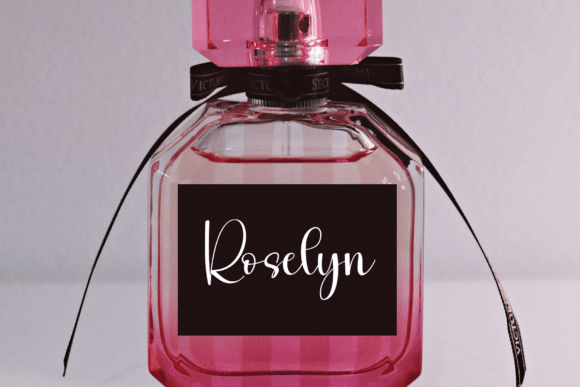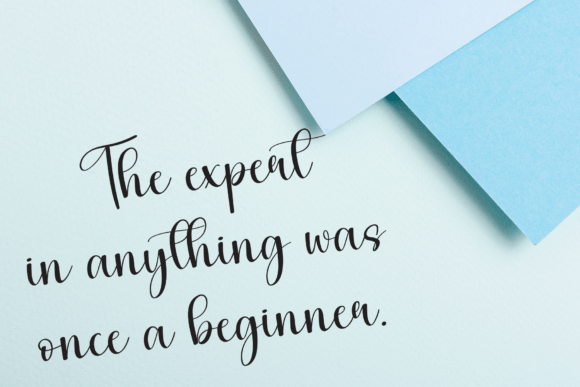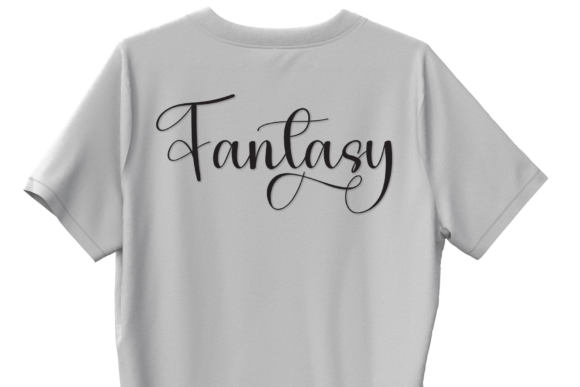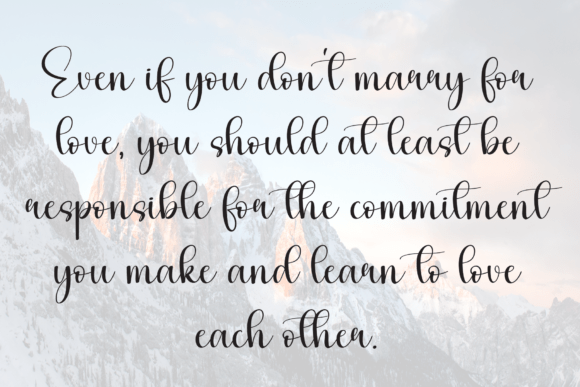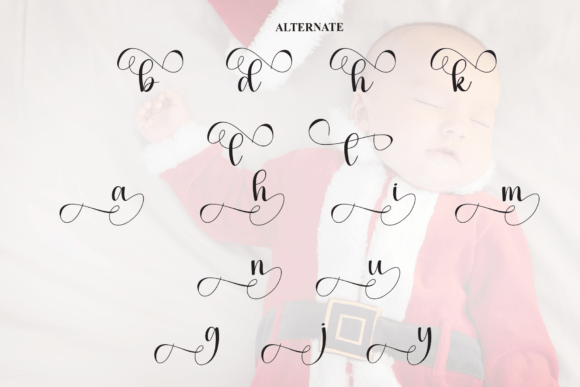
Unwrapping the Magic of the Holiday Season with Baby Santa Font
It’s that time of the year again when the air is filled with the sweet scent of pine, the soft glow of twinkling lights, and the sound of festive tunes. As designers, we’re always on the lookout for that special something to make our holiday projects truly special. And that’s where the enchanting Baby Santa Font comes in – a majestic script typeface that embodies the essence of luxury and sophistication.
With its sweeping swashes and elegant loops, the Baby Santa Font is the perfect addition to any high-end branding, luxury gift tags, or ornate holiday cards. Its unique blend of classic and contemporary styles makes it an invaluable asset for designers who want to create premium experiences that leave a lasting impression. Whether you’re working on a short, impactful phrase or a decorative header paired with a classic serif, the Baby Santa Font is sure to elevate your project to new heights.
Baby Santa Font Key Features
- Unique Characteristics: Hand-drawn, whimsical, and playful design with a mix of bold and cursive lines, perfect for festive and holiday-themed projects
- Character Set: Includes uppercase and lowercase letters, numbers, and punctuation marks, as well as a range of festive symbols and icons
Designer Review: Baby Santa Font
First impressions matter, and the Baby Santa Font definitely delivers on the festive vibe. ✨ The font’s playful and cute style is perfect for holiday-themed designs, advertisements, or even gift wrapping. The font’s curves and rounded edges evoke a sense of warmth and friendliness, making it ideal for projects that require a touch of whimsy.
The font’s character set includes a range of letters and symbols, including numbers and punctuation marks. This makes it a great option for longer text-based projects, such as holiday newsletters or social media posts. ✨ The font’s versatility is a major plus, allowing designers to get creative with their holiday-themed designs.
- ⚠️ The font’s cursive style can make it difficult to read in certain contexts, such as in small text sizes or on low-resolution screens.
- ⚠️ The font’s character set is not extensive, which may limit its use in projects that require a wide range of characters or languages.
- ⚠️ The font’s design may not be suitable for more formal or professional projects, as it can come across as too playful or childish.
Overall, the Baby Santa Font is a great option for designers looking to add a touch of holiday cheer to their projects. While it may have some limitations, its versatility and festive vibe make it a valuable addition to any designer’s toolkit.
Here are some tips for getting the most out of the Baby Santa Font:
- Use the font in conjunction with festive graphics and images to create a fun and playful design.
- Use the font to add a personal touch to your designs, such as a child’s name or a special message.
Here are some common use cases for the Baby Santa Font:
- Christmas cards and invitations.
- Holiday party decorations and signage.
- Children’s birthday party
Q: Does Baby Santa Font support ligatures and contextual alternates?
Yes, the Baby Santa Font includes OpenType features such as ligatures and contextual alternates. These advanced typography features can be accessed in design software that supports OpenType, such as Adobe Creative Cloud applications.